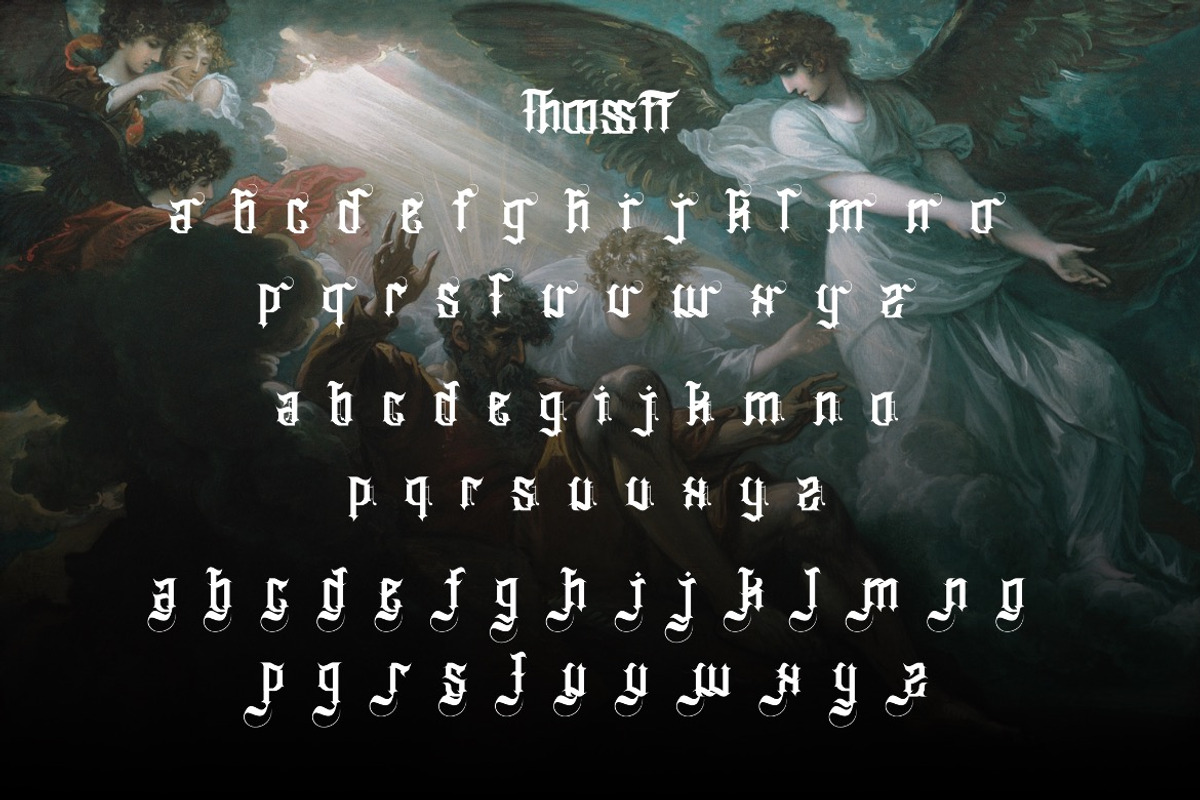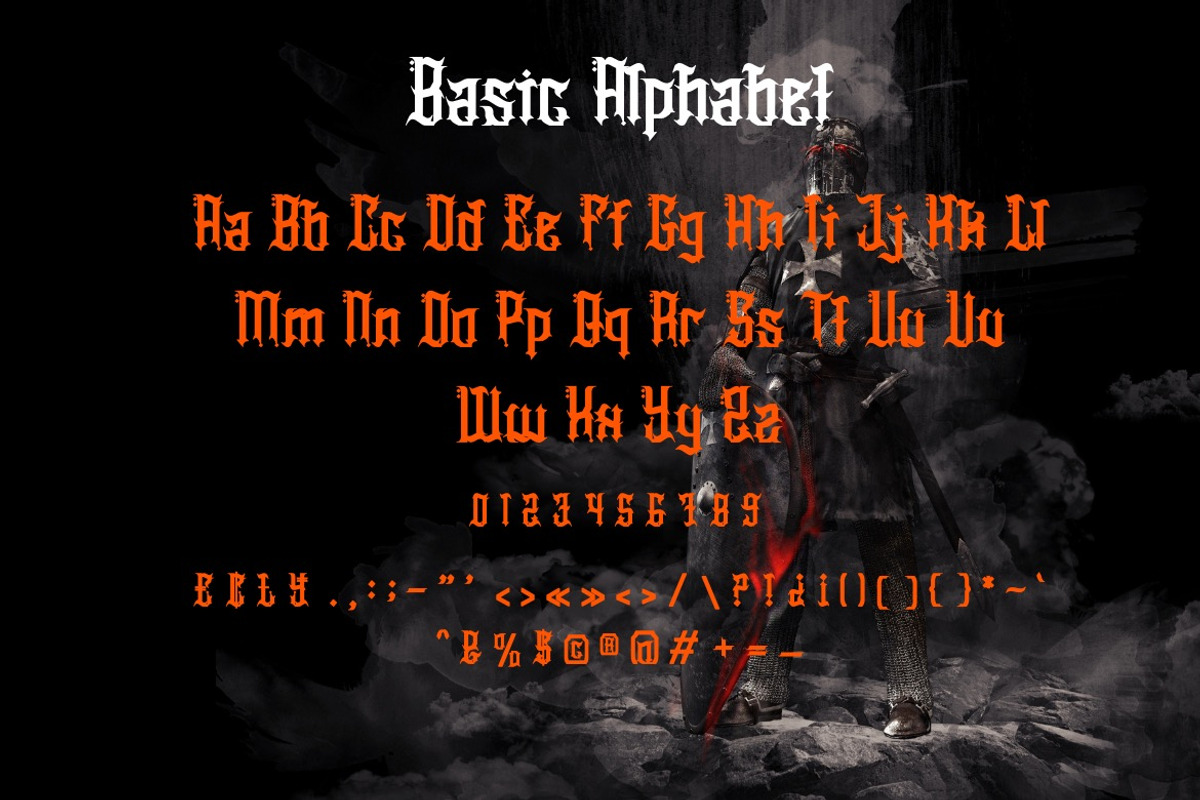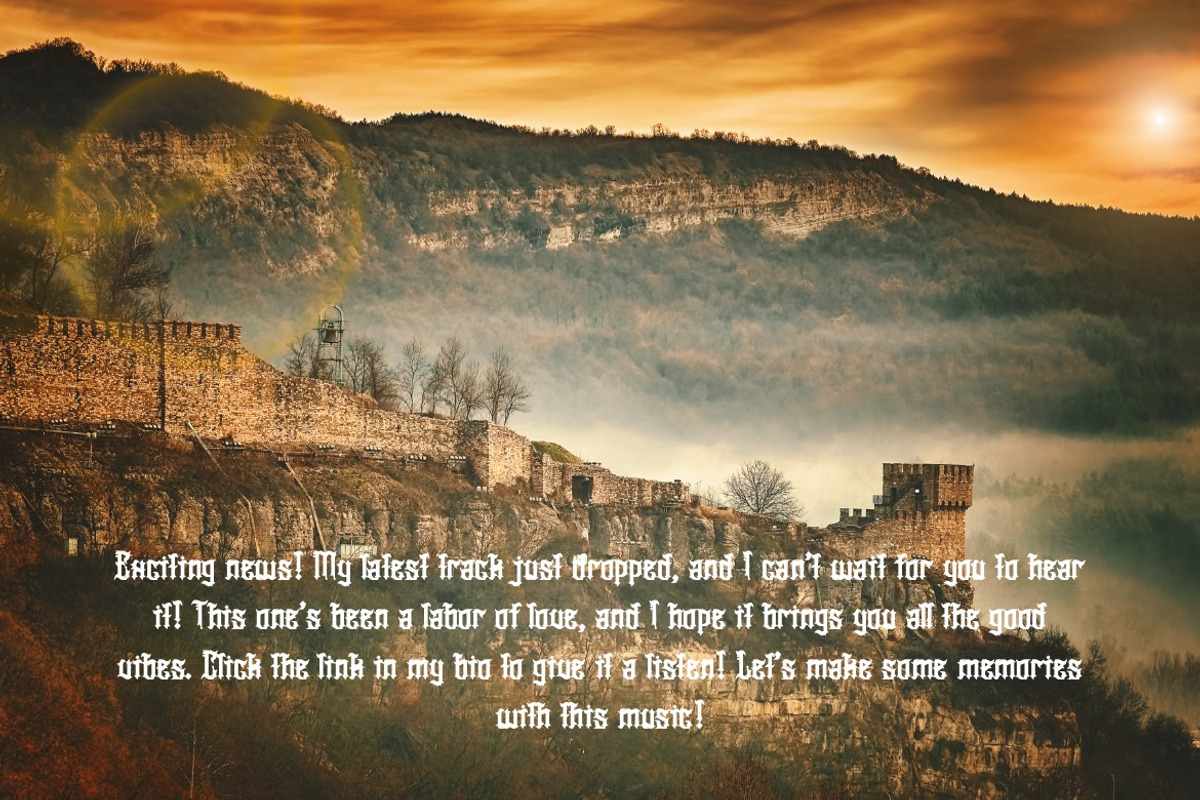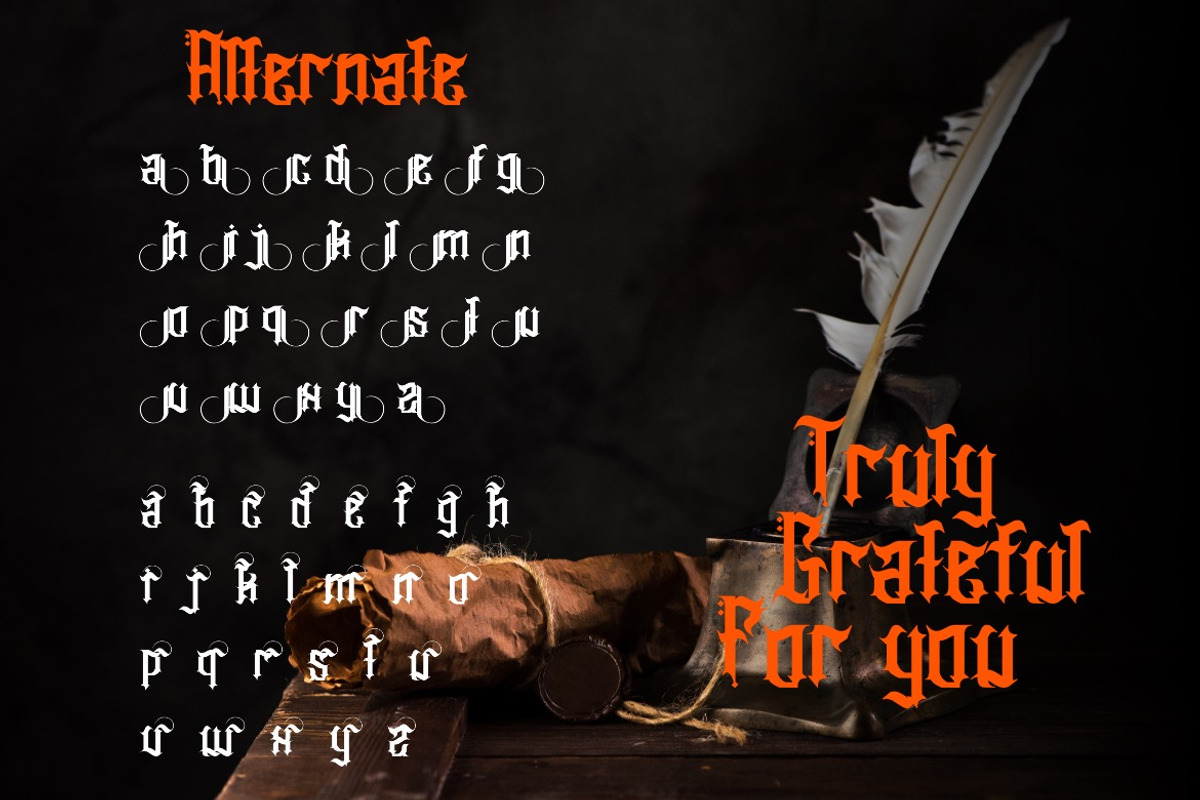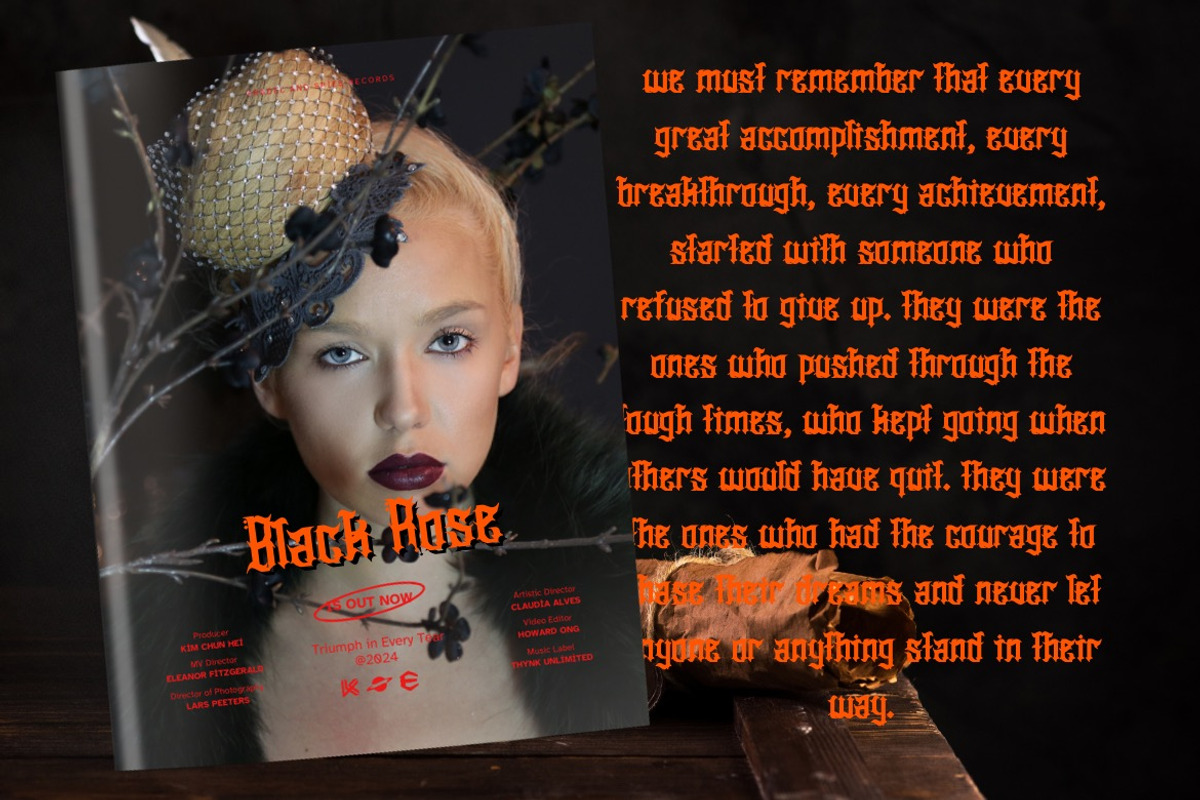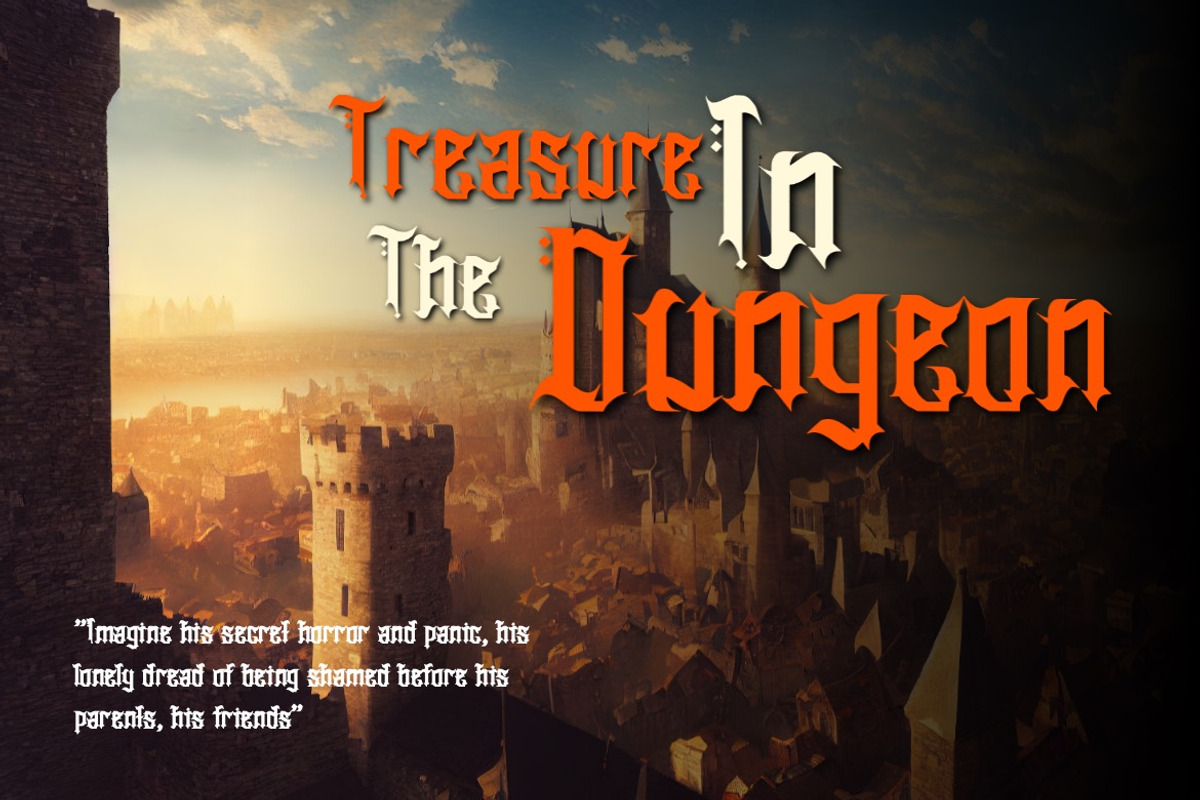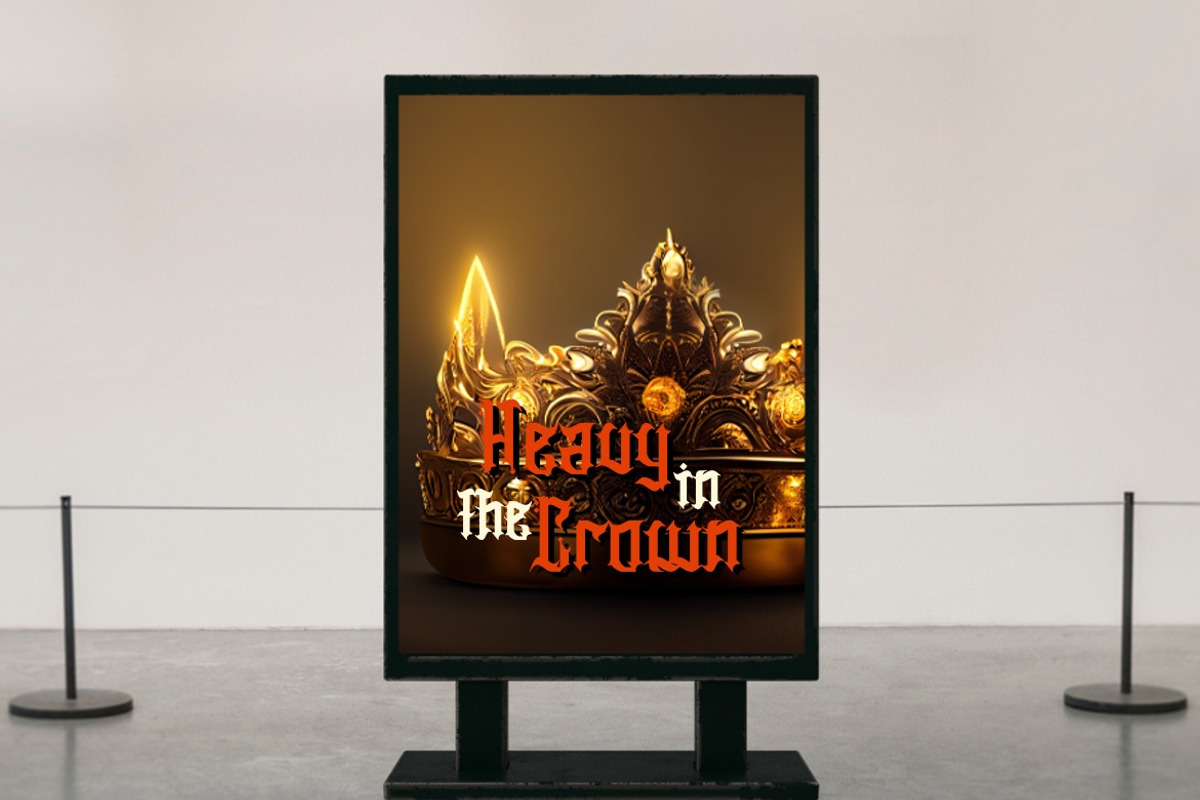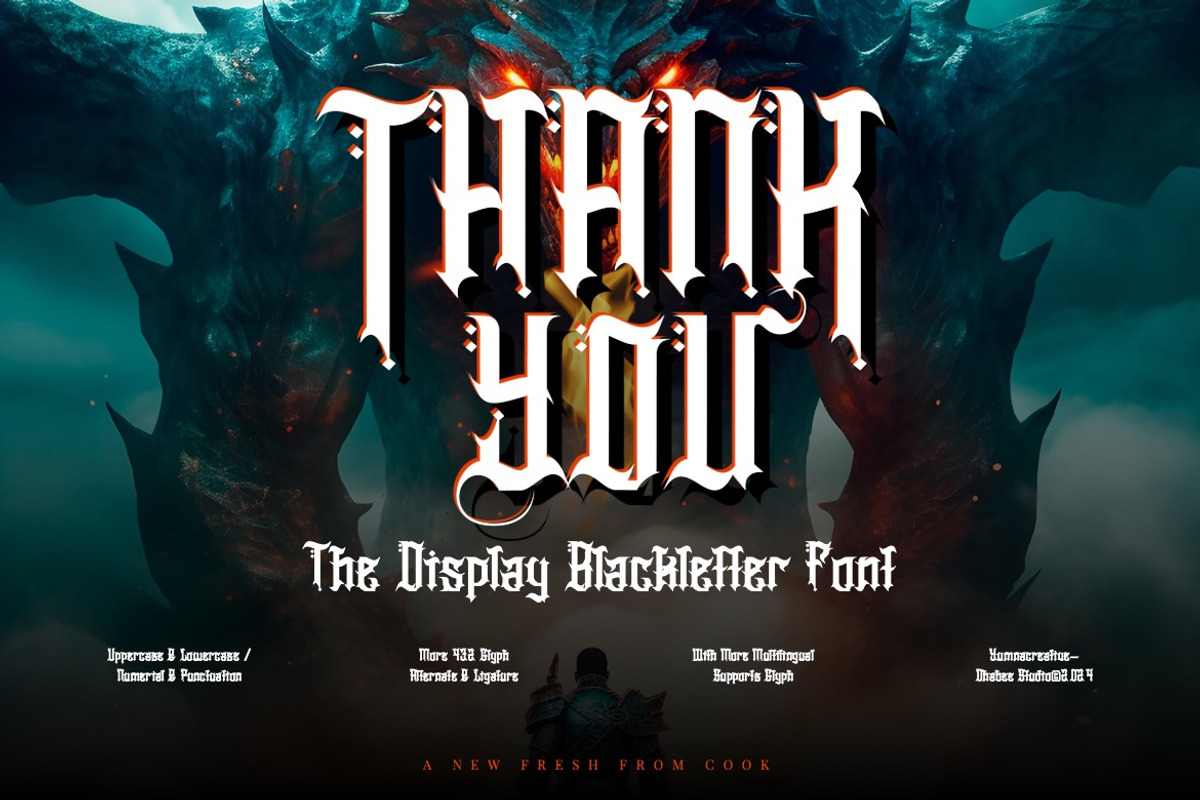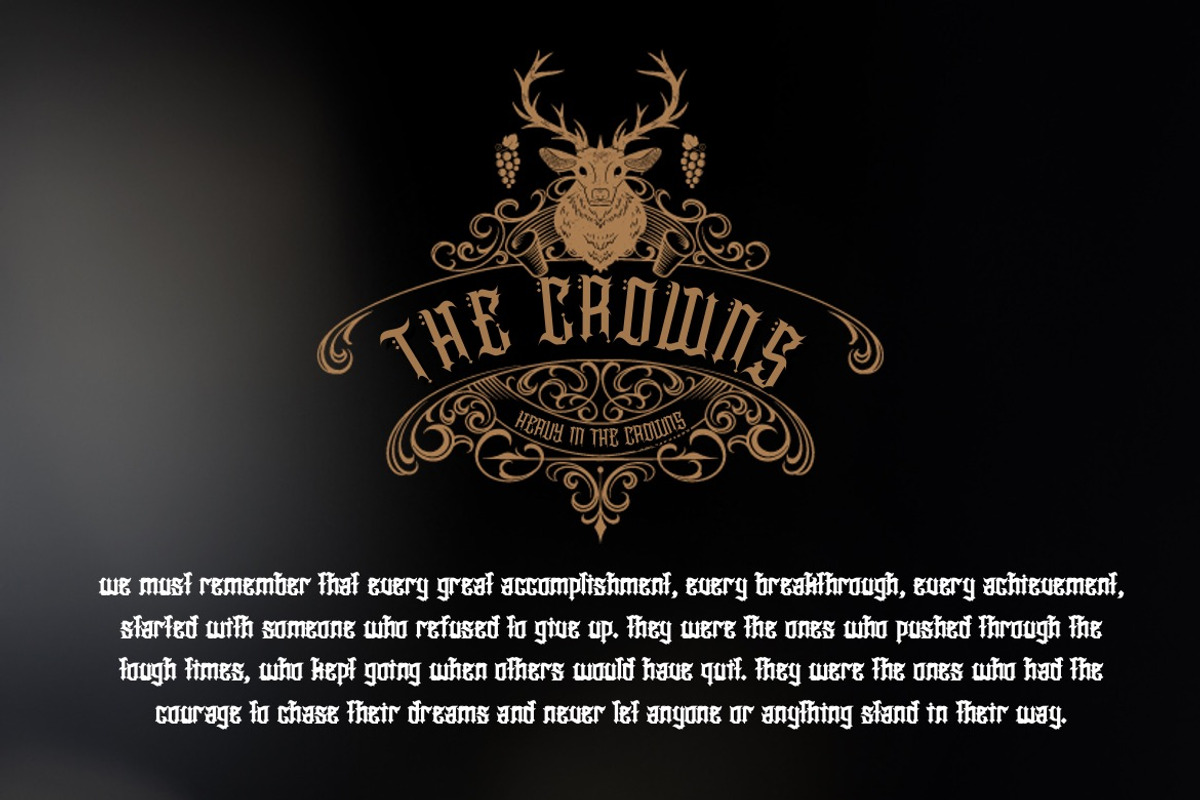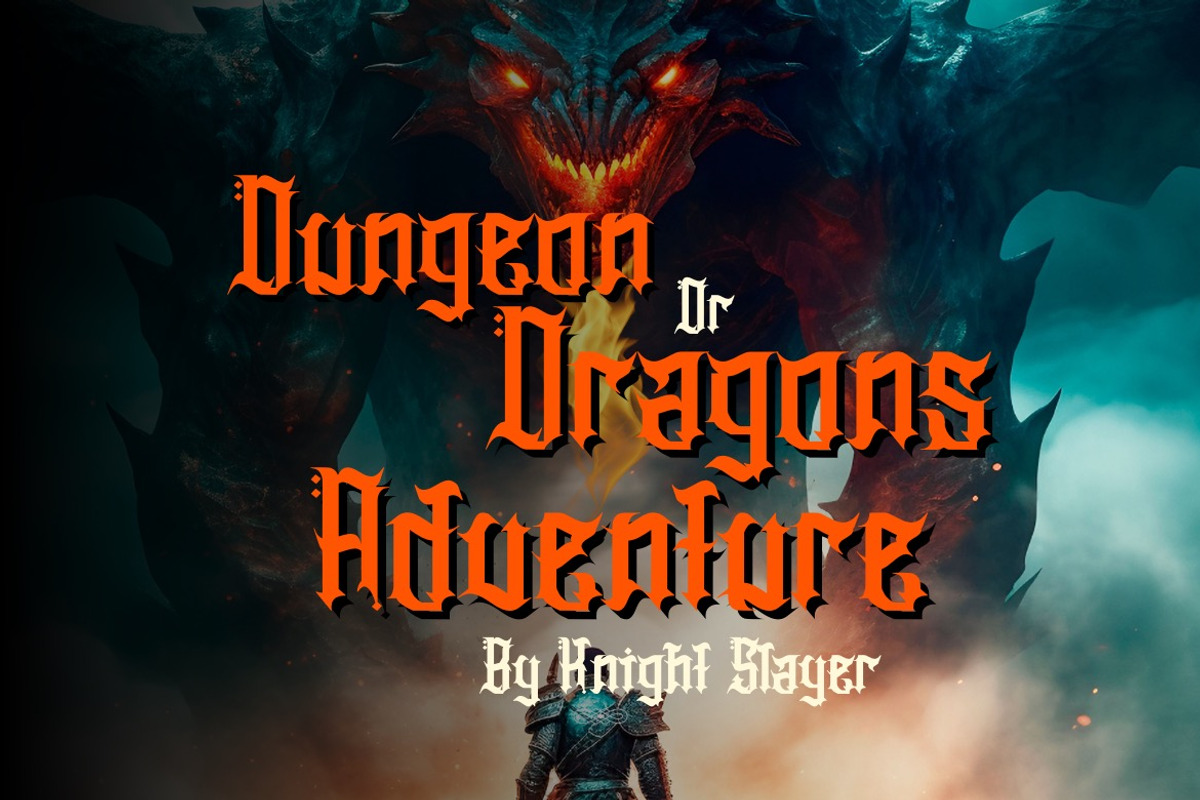
Heavier Crowns - Display Blackletter
Introducing Heavier Crowns - Display Blackletter
Heavier Crowns - Display Blackletter Font is a bold blackletter fraktur display font that merges traditional Gothic aesthetics with modern impact. Its intricate letterforms feature sharp angles, dramatic strokes, and striking contrasts, embodying strength, authority, and historical charm. The bold weight enhances its commanding presence, making it ideal for designs that demand attention and sophistication. This Font can be used for various purposes such as Magazine Title, Poster, Logo, T-Shirt, Sub Title, Business cards, Magazines, Book Covers, Wedding Invitations,Templates Instagram Story Post, Greeting Cards, Quotes, etc.
• Alternate & Ligature